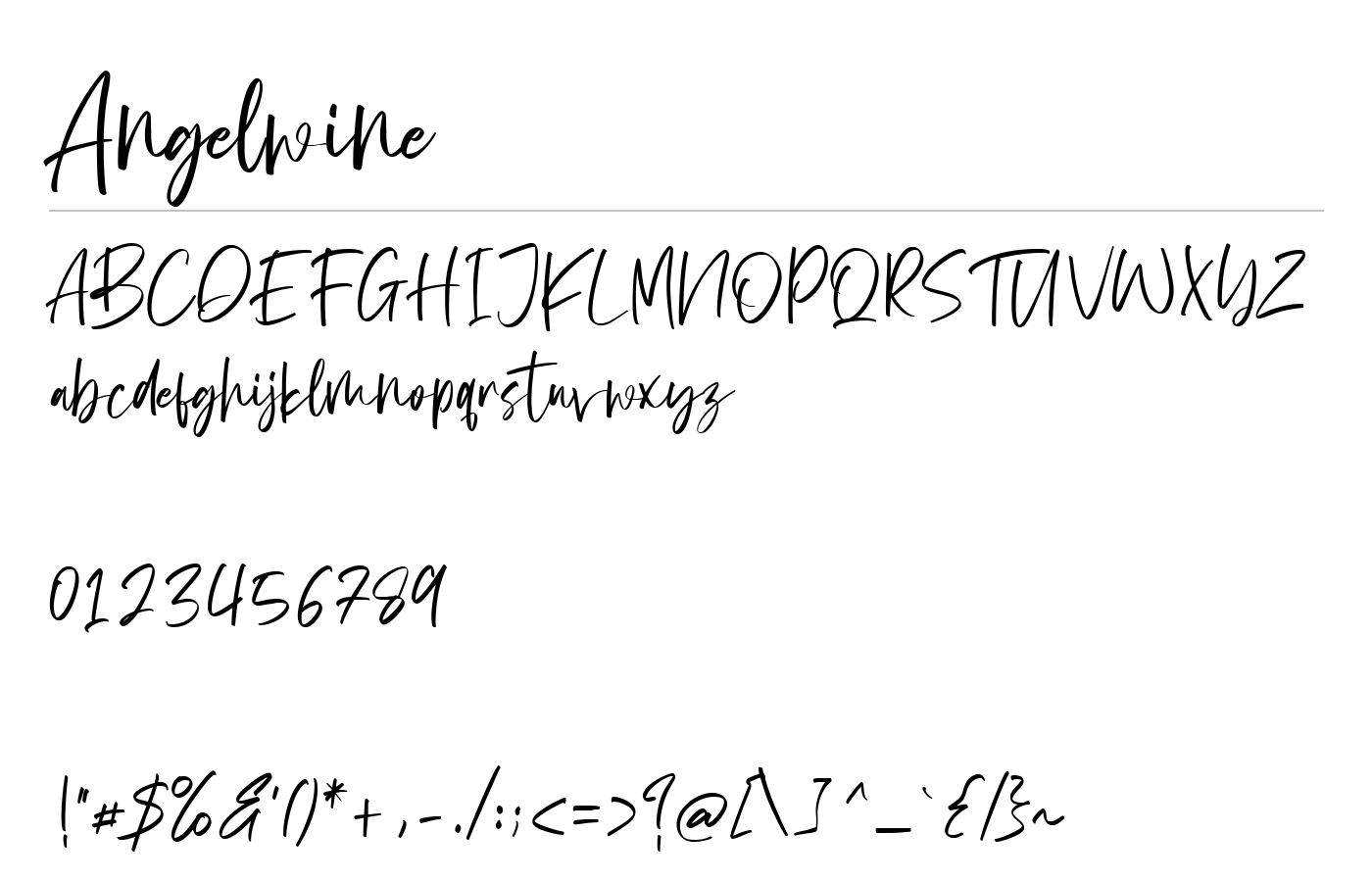
Angelwine is a lively and elegant handwritten script font that combines a casual, natural flow with refined, slightly irregular strokes. Its tall, slender letterforms and smooth curves give it a stylish, personal touch, making it perfect for branding, invitations, and creative projects that seek a warm, friendly, yet sophisticated feel. This font works well for fashion, lifestyle, and boutique designs where an intimate and handcrafted impression is desired.
Angelwine Font
About Angelwine Font
| Font family | Angelwine Font |
| Designer | StringLabs |